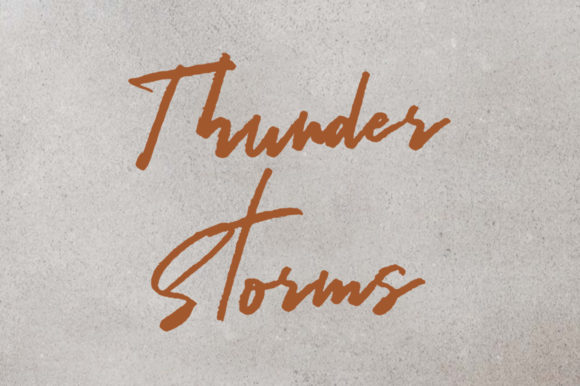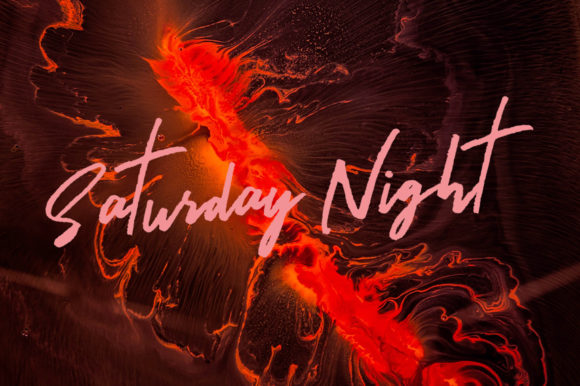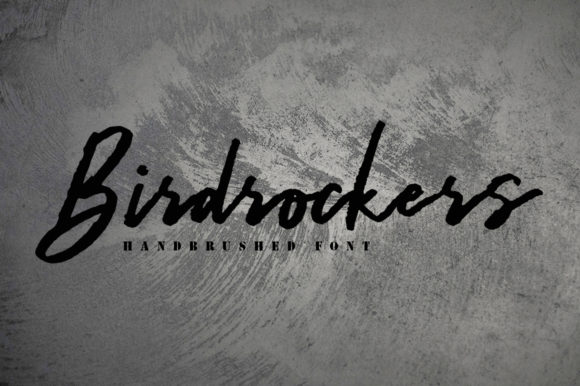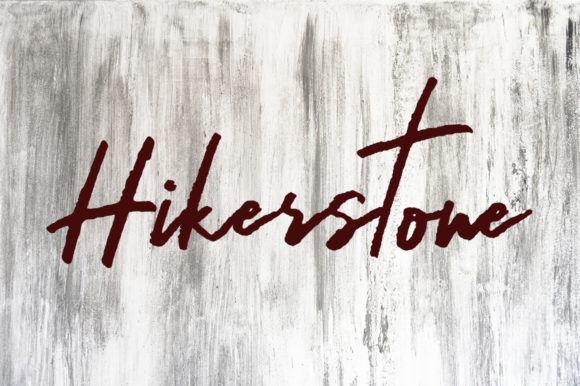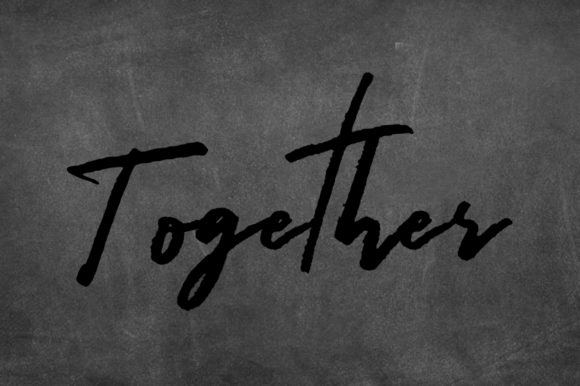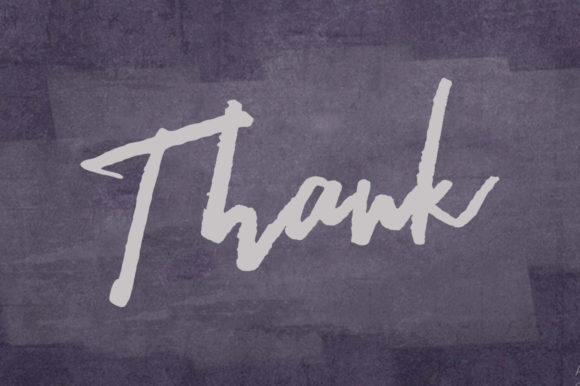
Introduction to Riders Font
Riders is any edgy script font that can add life and excitement to any design.
Make use of its daring handwritten flourishes .